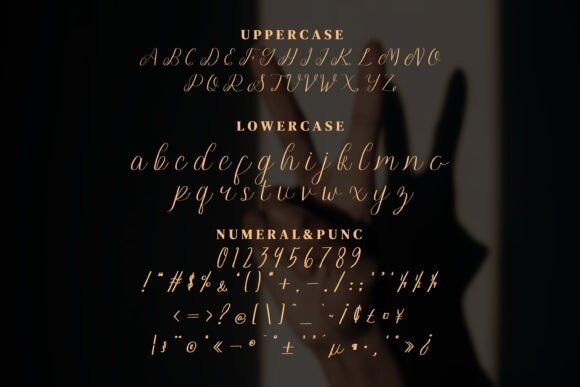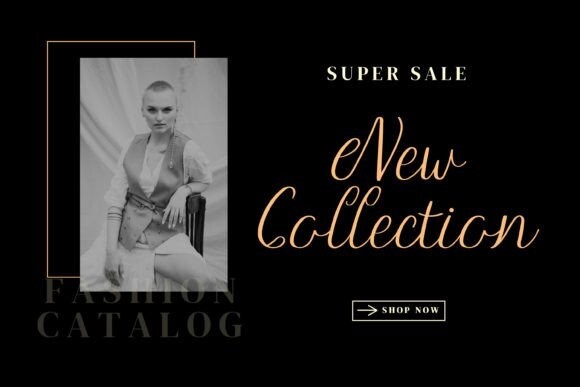
Brugundy Font
Brugundy Font a truly deluxe script font, carefully crafted to embody elegance and sophistication. With its intricate curves and flourishing strokes, this font exudes a sense of luxury and refinement, perfect for high-end branding and editorial design. Its beauty and grace make it the ultimate choice for any project that demands a touch of glamour. This font is PUA encoded which means you can access all of the amazing glyphs and ligatures with ease!